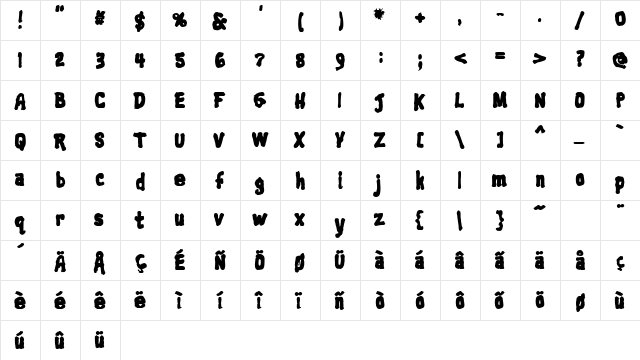
TrainwreckBlack Regular
Design Context for TrainwreckBlack Typeface
TrainwreckBlack is a composed and adaptable typeface that performs quietly and consistently across a wide range of design contexts.